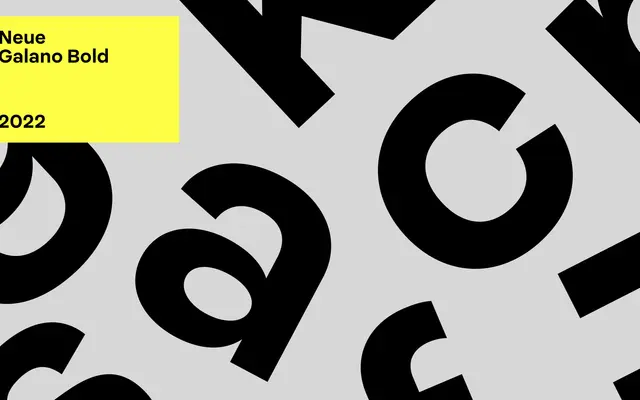
Neue Galano specimen from Studio Rene Bieder
A geometric sans spanning nine weights with matching italics and a set of OpenType alternates including single-storey 'a' and alternate arrows.
Neue Galano covers ExtraLight through Heavy in 18 styles, each paired with an italic, giving it a broad range for both text and display use. OpenType features include tabular and proportional figures, fractions, case-sensitive forms and several character alternates for 'a', 'y', 'M' and 'J'. The family sits comfortably in branding, editorial and interface contexts where a clean geometric sans is required without strong stylistic idiosyncrasy.
Clean, even stroke contrast and a wide weight range from ExtraLight to Heavy suggest a geometric sans construction; the alternate single-storey 'a' and other OpenType alternates reinforce a modern geometric character.